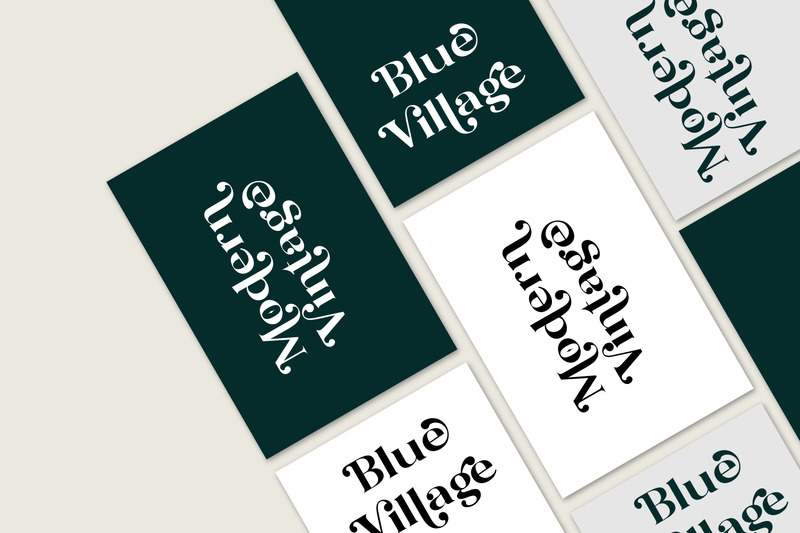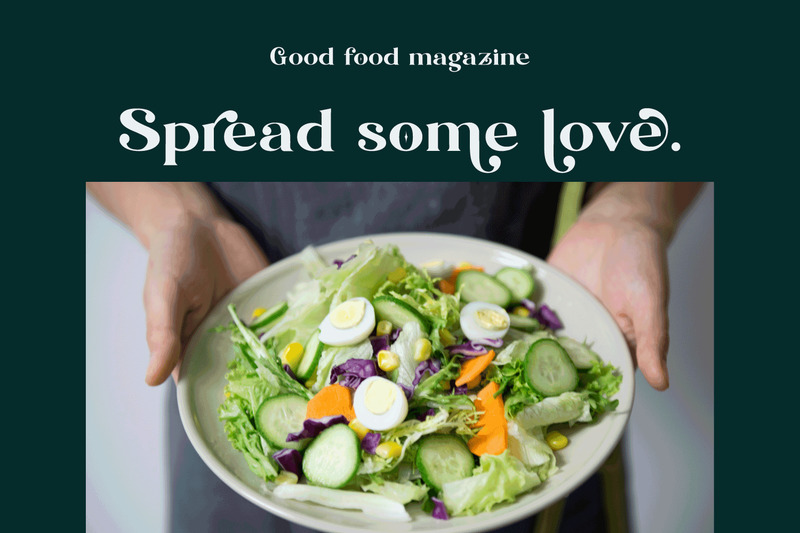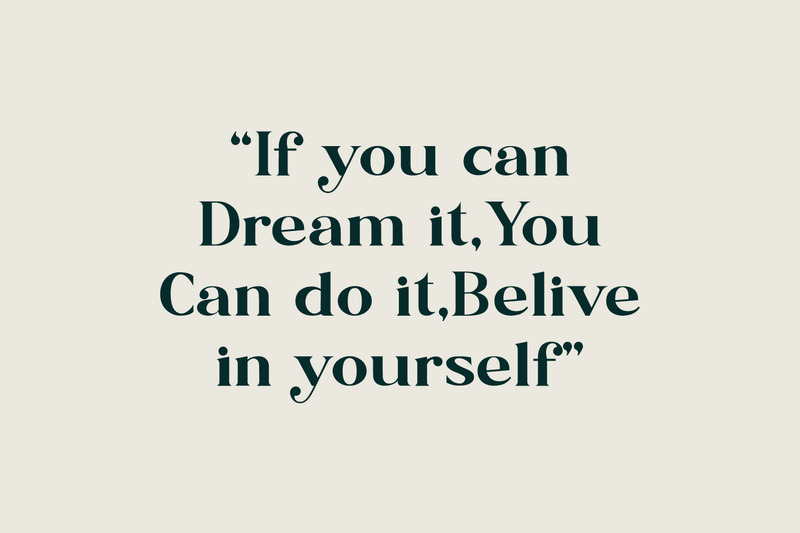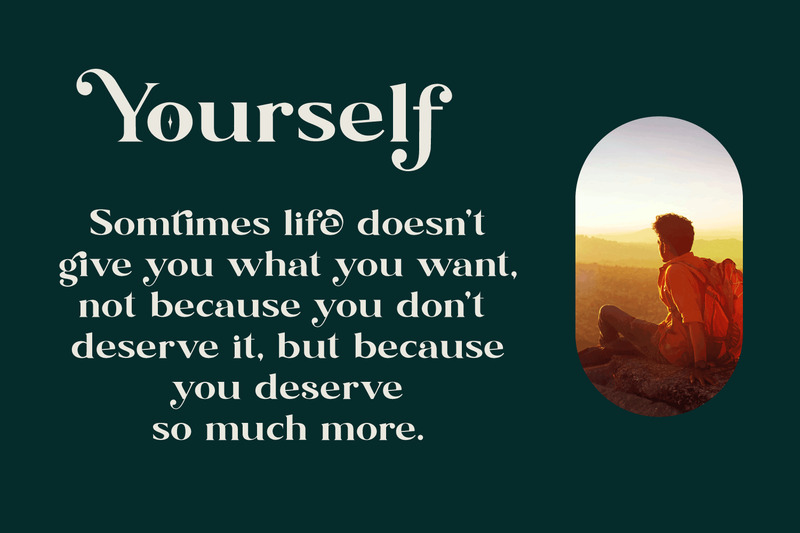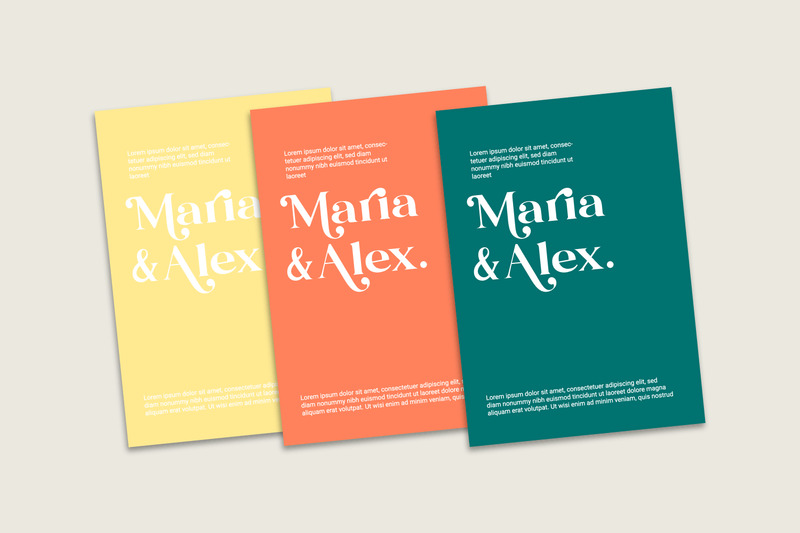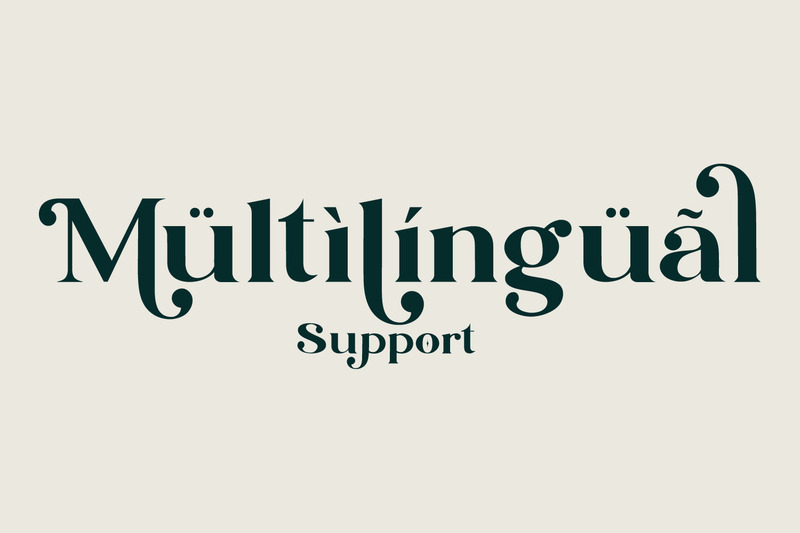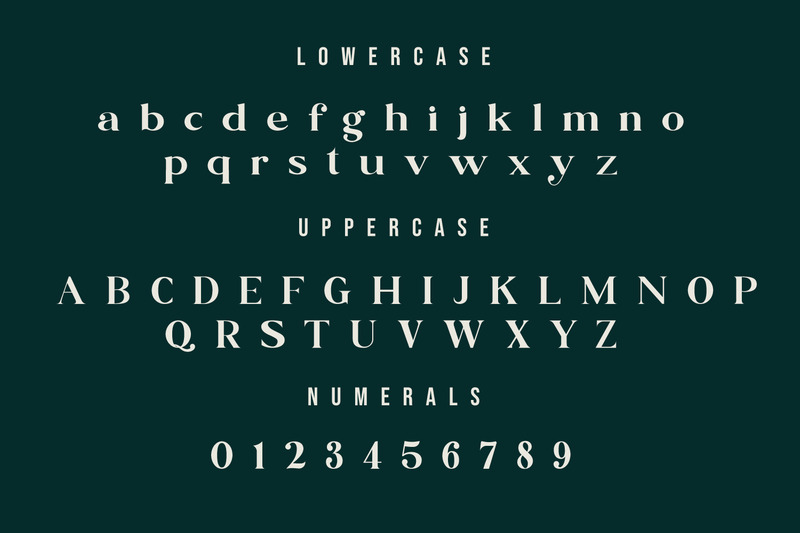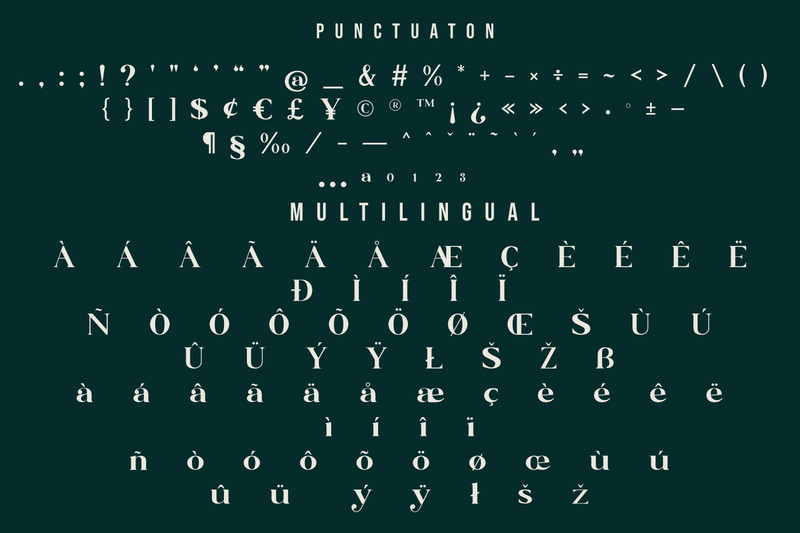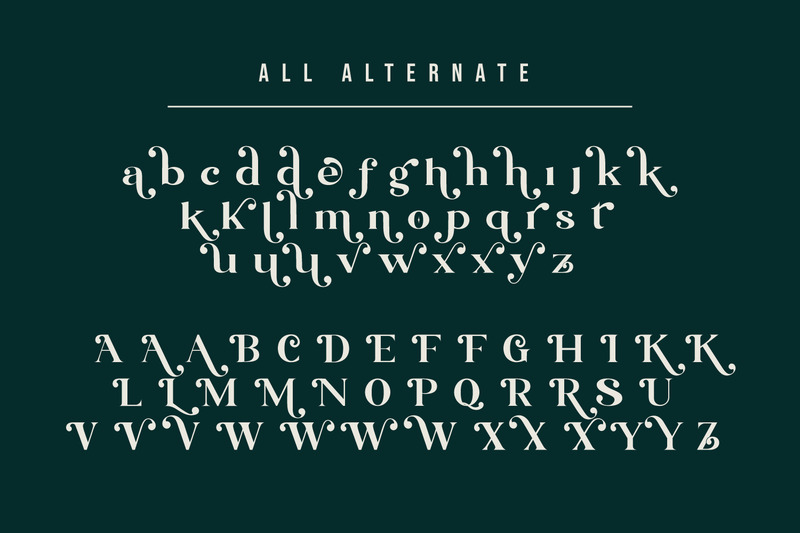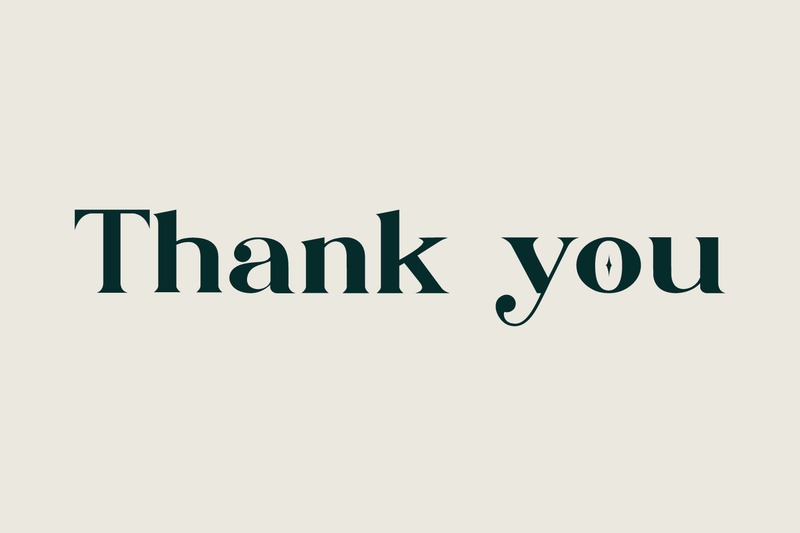
Blue Village – Modern / Vintage Serif Font
Blue Village – A Two-faced Modern or Vintage Serif Font with a fancy, playful, unique, and versatile vintage style. It looks amazing at display sizes and is easily readable in text size.
This font also have a lot of unique alternate and ligature that will create amazing design projects.
Blue Village with it’s vintage / retro style work well for branding projects, logo, wedding designs, social media posts, advertisements, product packaging, product designs, label, photography, watermark, invitation, or whatever project you’re working on.
Uppercase & lowercase letters, numbers, punctuation Ligature & Huge Stylistic alternate
Multilingual support